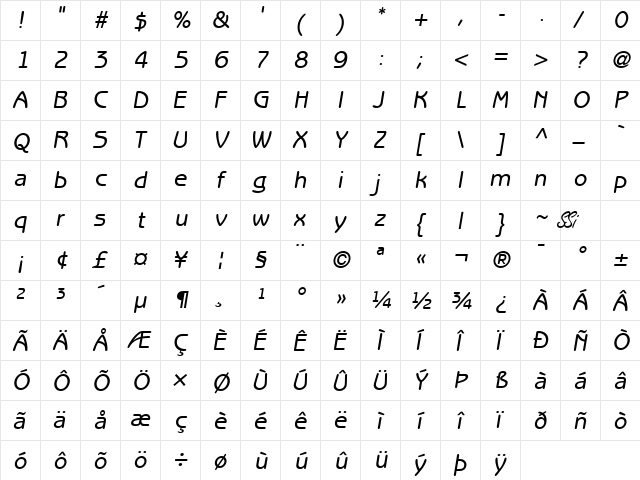
Express Deco Gothic SSi Italic
Design Context for Express Deco Gothic SSi Typeface
Express Deco Gothic SSi takes a clean, functional approach — its unadorned letterforms prioritise legibility and work reliably across screen and print environments. Its italic angle brings a sense of urgency and motion to the letterforms.
Font Pairing: Works well alongside a characterful serif or display font that can carry the expressive load while Express Deco Gothic SSi handles the functional copy.
Pro Tip: Use Express Deco Gothic SSi for UI labels, navigation, and short-form body copy where clean legibility is the priority.